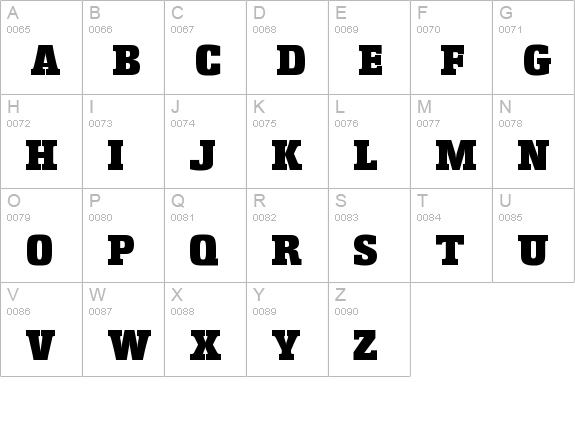
Kaman Display SSi Font Details
Kaman Display SSi font is a stunning display typeface that exudes elegance and sophistication. Its intricate letterforms and sharp angles make it perfect for creating impactful headlines, logos, and signage. This font captures attention with its unique style, combining modernity and classic charm. With Kaman Display SSi font, your designs will stand out from the crowd. Whether you're designing for print or digital media, this versatile font will add a touch of professionalism and creativity to your projects. Its clean lines and well-defined characters ensure readability at any size. What makes Kaman Display SSi font even more appealing is that it is freely available to download at FontsMarket.com. This means that you can easily access this remarkable font without any hassle. Whether you're a professional designer or a hobbyist, you can take advantage of this font's beauty and versatility. Don't miss out on the opportunity to enhance your work with Kaman Display SSi font. Download it today from FontsMarket.com and witness the transformative power it brings to your design projects. Get ready to captivate your audience and leave a lasting impression with this exceptional, freely available font.